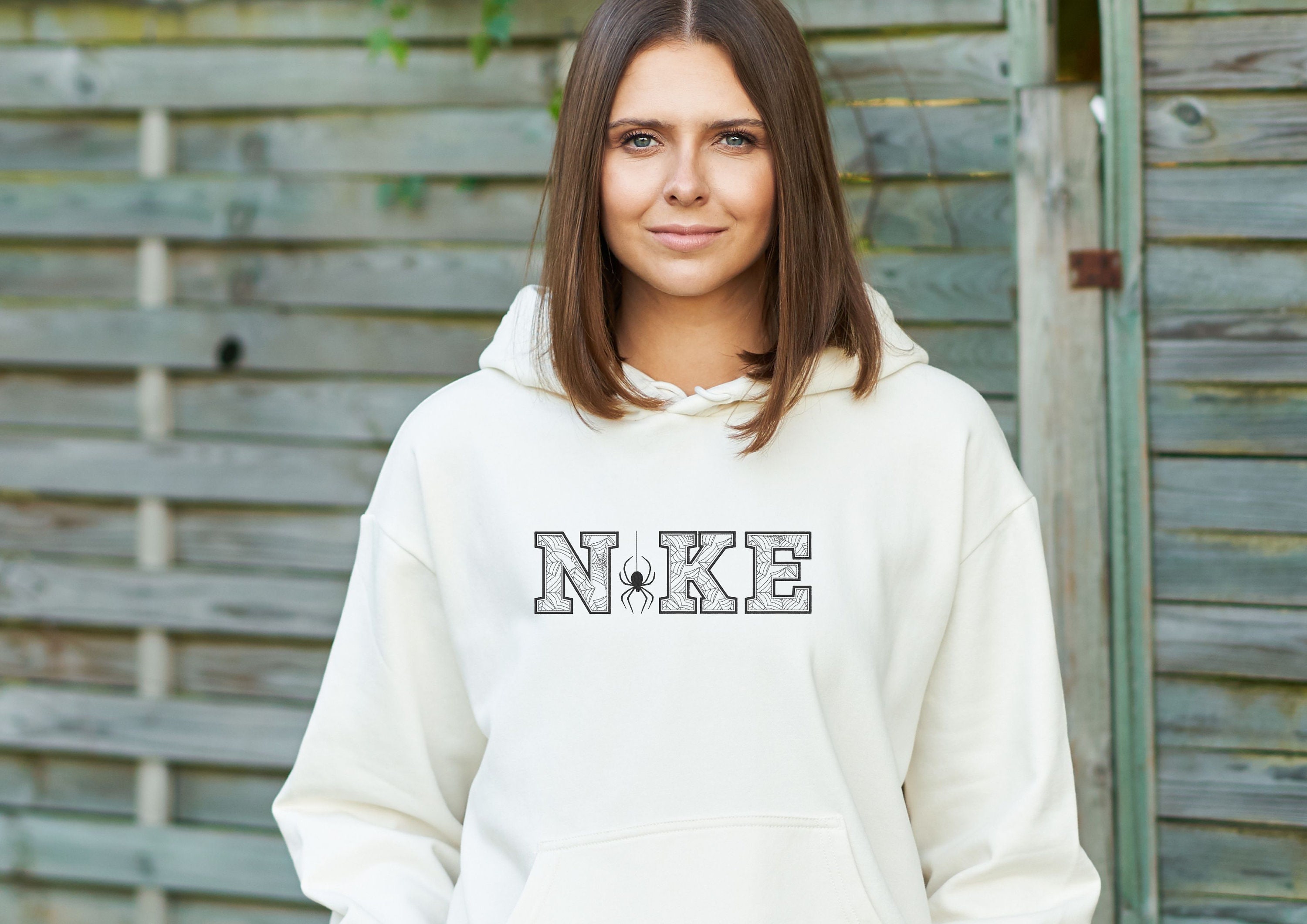
Nice style spooky Spiderweb outline light stitch sweatshirt Font alphabet letters machine embroidery designs 2.9 thru 7 inches, monogram BX
Uppercase and lowercase letters